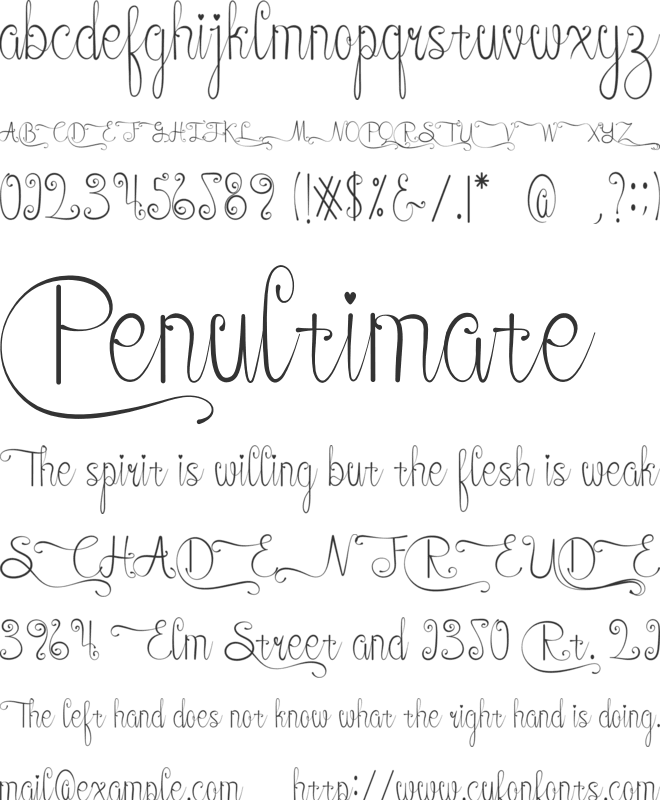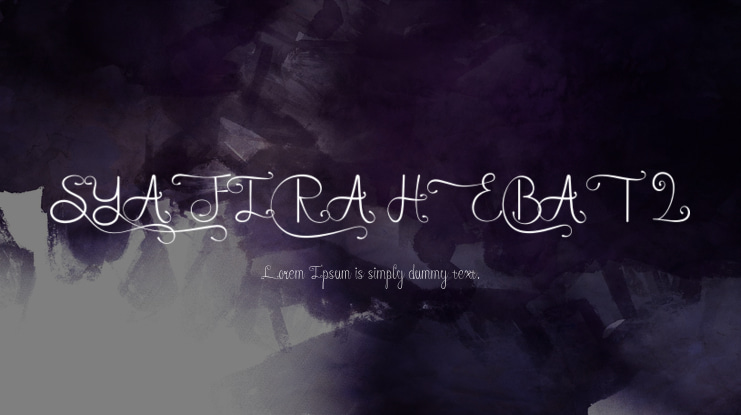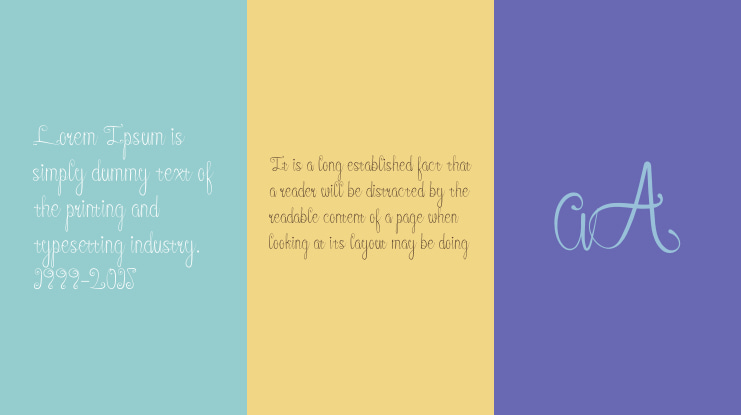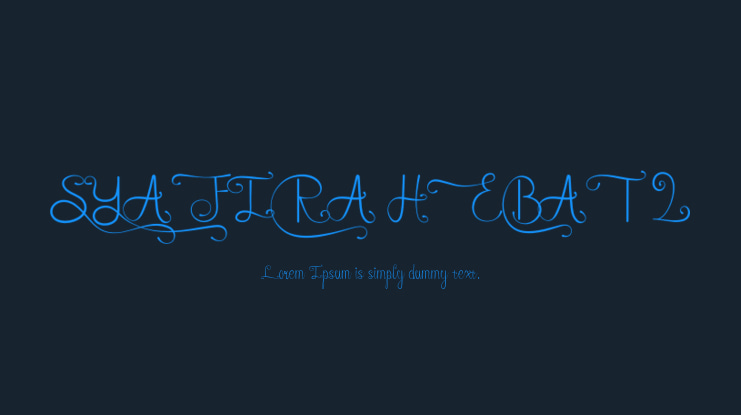
SYAFIRA HEBAT 2 Font
Playboy is a lovely script font featuring charming, playful characters that seem to dance along the baseline. Add this font to your most creative ideas, and notice how it makes them stand out!